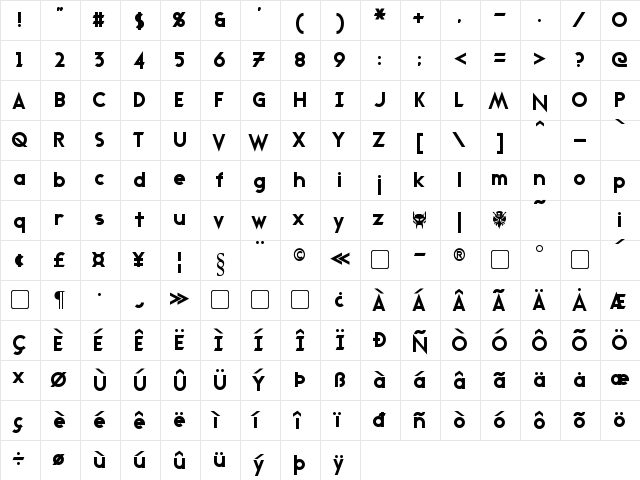
Transmetals Regular
| Designer | Neale Davidson |
Design Context for Transmetals Typeface
Transmetals is a composed and adaptable typeface that performs quietly and consistently across a wide range of design contexts.